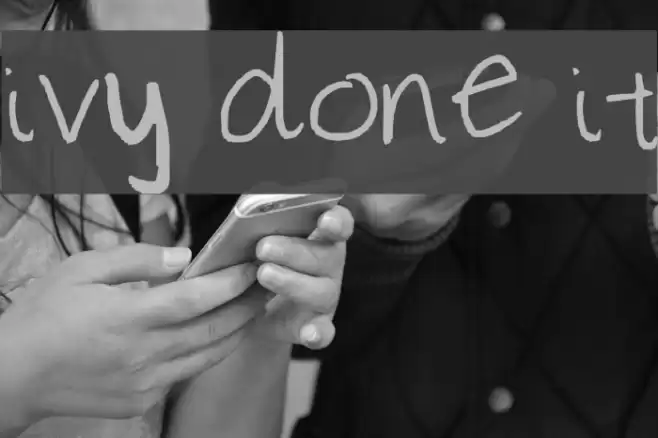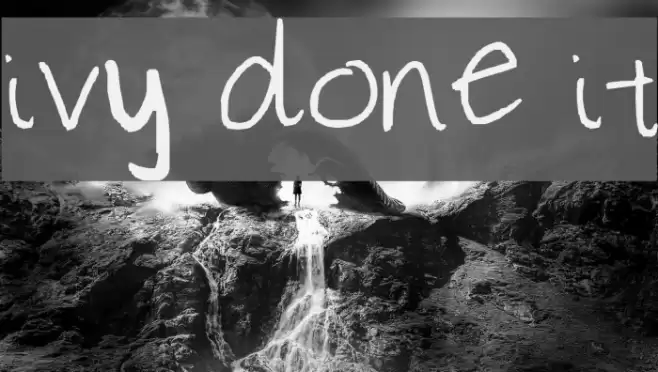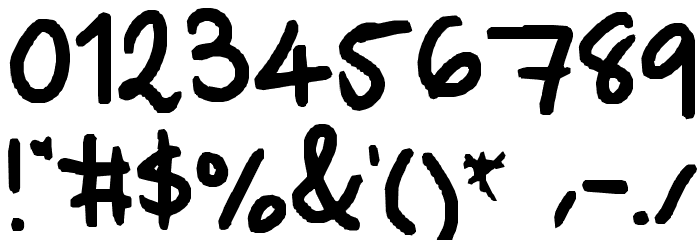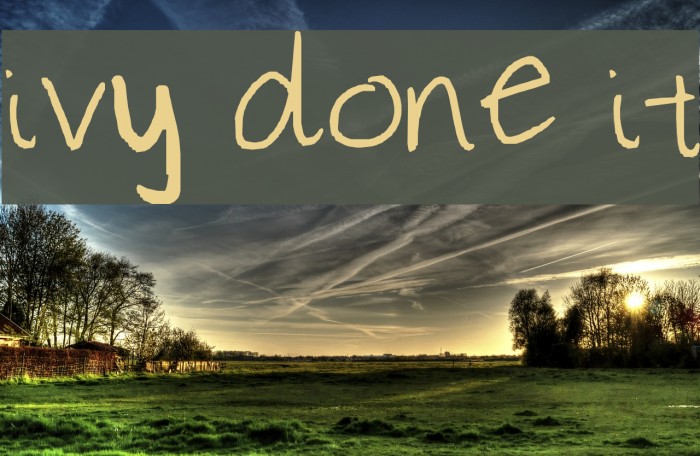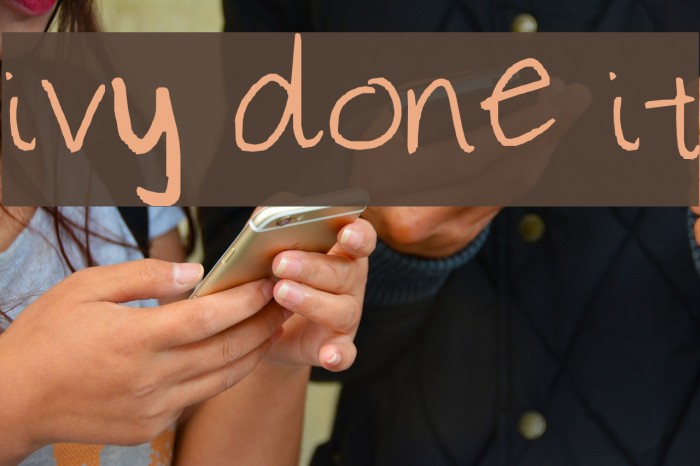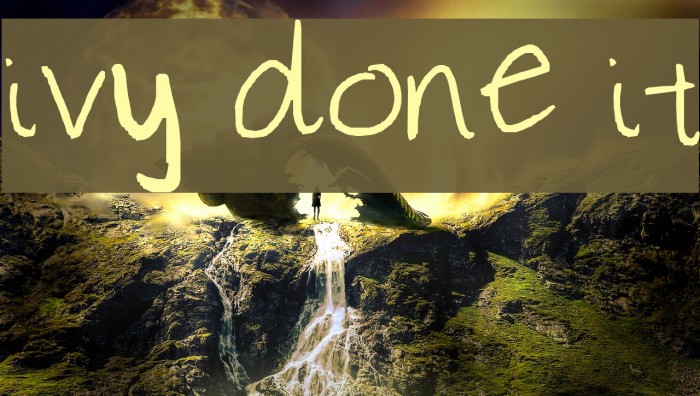
ivy done it Font
ivy done it Description
This font features a playful, handwritten style with a casual and informal appearance. The letters are slightly uneven, giving it a personal and approachable feel. The uppercase and lowercase letters are distinct, with a consistent stroke width that maintains readability. The numbers and special characters follow the same playful style, making the font versatile for various uses. Its organic flow and friendly demeanor make it suitable for projects that require a touch of personality and warmth.
A playful, handwritten font with a casual and friendly style from Uncategorized fonts.
- Proposed Projects: Ideal for greeting cards, children's books, personal blogs, and informal branding materials.
- Overall Style: Casual
- Use Case: Headlines, Informal text, Creative projects